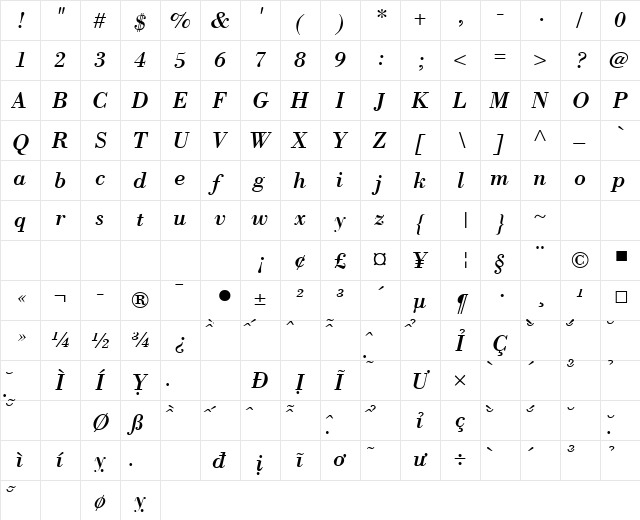
VNI-Bodon Italic Font Preview
VNI-Bodon Italic
VNI-Bodon Italic Font Details
Design Context for VNI-Bodon Typeface
VNI-Bodon takes a measured approach to typography — its balanced proportions and neutral character make it a reliable workhorse for both digital and print work. The slanted form adds forward momentum and visual energy.